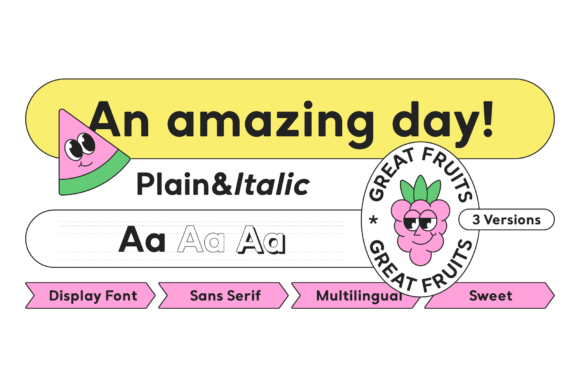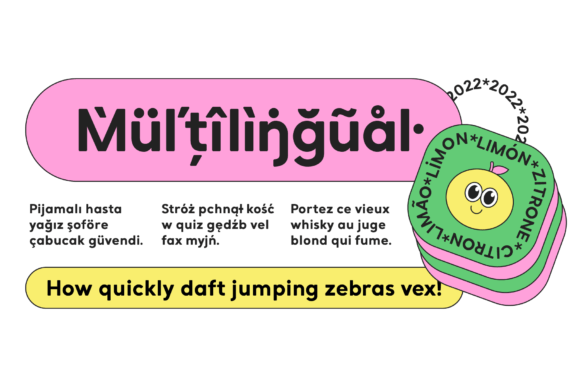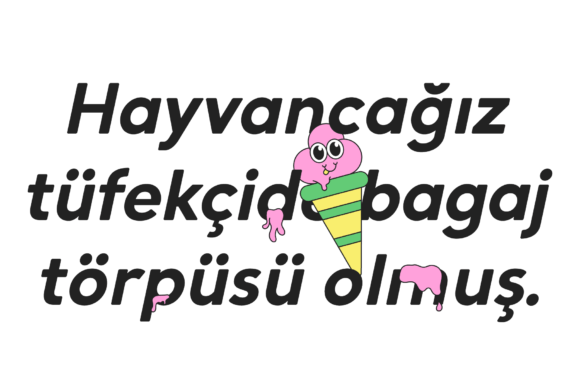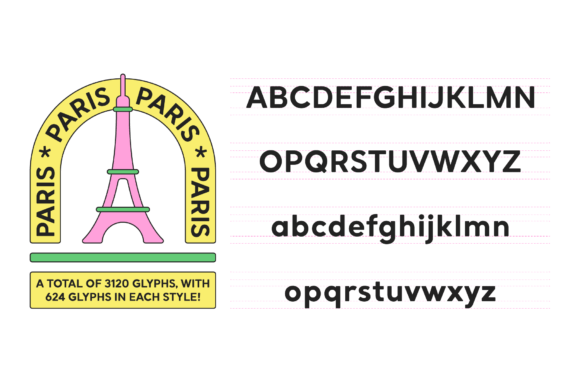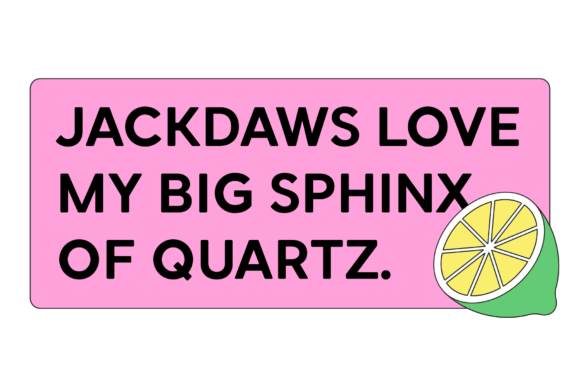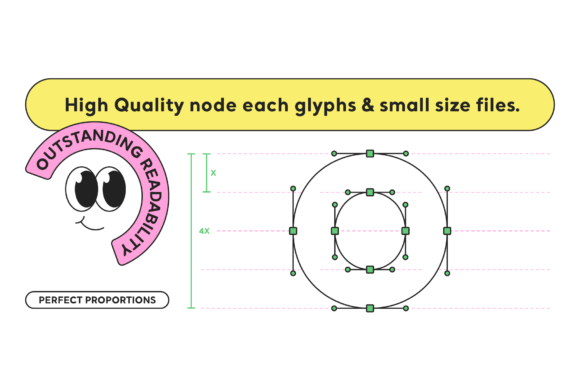
Gunaydin Font: Elevate Your Designs with a Modern and Impactful Typeface
In the world of typography, a well-crafted font can make all the difference in elevating your design projects from ordinary to extraordinary. Günaydın font is a stunning contemporary display font that has been gaining popularity among designers and crafters alike. With its sleek lines, bold letterforms, and perfect balance of style and legibility, Günaydın font is the ideal choice for creating attention-grabbing headlines, logos, posters, and more.
What is Günaydın Font?
Günaydın font is a modern sans-serif typeface designed to make a statement. Its clean and minimalist aesthetic makes it perfect for designs that require a bold and impactful look. The font’s sleek lines and geometric shapes give it a futuristic feel, while its bold letterforms ensure that your text stands out from the crowd.
Key Features of Günaydın Font
- Contemporary Design: Günaydın font boasts a modern and sleek design that is sure to elevate your design projects.
- Bold Letterforms: The font’s bold letterforms make it perfect for creating attention-grabbing headlines and titles.
- Legible: Despite its bold design, Günaydın font remains highly legible, making it suitable for use in a variety of design projects.
- Versatile: Günaydın font can be used for a wide range of design projects, from logos and posters to headings and titles.
Why Choose Günaydın Font?
There are many reasons why Günaydın font has become a go-to choice among designers and crafters. Here are just a few:
- Unique Design: Günaydın font’s unique design sets it apart from other fonts, making it perfect for designers who want to create something truly original.
- Easy to Read: Despite its bold design, Günaydın font is highly legible, making it easy to read even at small sizes.
- High-Quality: Günaydın font is a high-quality typeface that is designed to deliver exceptional results in a variety of design projects.
- Time-Saving: With Günaydın font, you can create professional-looking designs in a fraction of the time it would take with other fonts.
How to Use Günaydın Font in Your Designs
Using Günaydın font in your designs is easy. Here are a few tips to get you started:
- Headlines and Titles: Günaydın font is perfect for creating attention-grabbing headlines and titles.
- Logos and Branding: The font’s bold and modern design makes it ideal for use in logos and branding materials.
- Posters and Flyers: Günaydın font is a great choice for posters and flyers, adding a touch of modern style to your designs.
- Web Design: Günaydın font can also be used in web design, adding a touch of sophistication and style to your website.
Tips for Getting the Most Out of Günaydın Font
Here are a few tips for getting the most out of Günaydın font:
- Experiment with Different Sizes: Günaydın font looks great at a variety of sizes, so don’t be afraid to experiment.
- Pair with Other Fonts: Günaydın font pairs well with a variety of other fonts, so try pairing it with some of your favorite typefaces.
- Use in Combination with Images: Günaydın font looks great in combination with images, so try using it to add a touch of style to your designs.
In conclusion, Günaydın font is a stunning contemporary display font that is perfect for designers and crafters who want to elevate their design projects. With its sleek lines, bold letterforms, and perfect balance of style and legibility, Günaydın font is the ideal choice for creating attention-grabbing headlines, logos, posters, and more. Whether you’re a seasoned designer or just starting out, Günaydın font is a great addition to your typography toolkit.